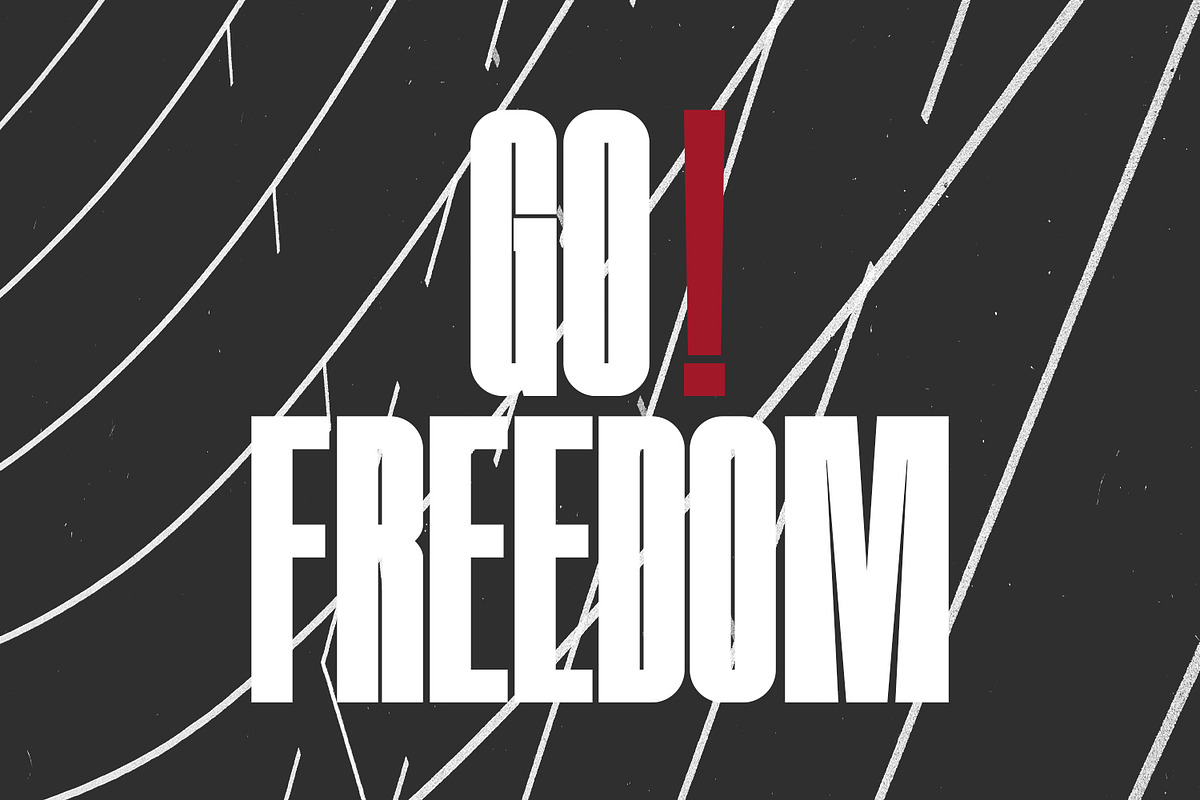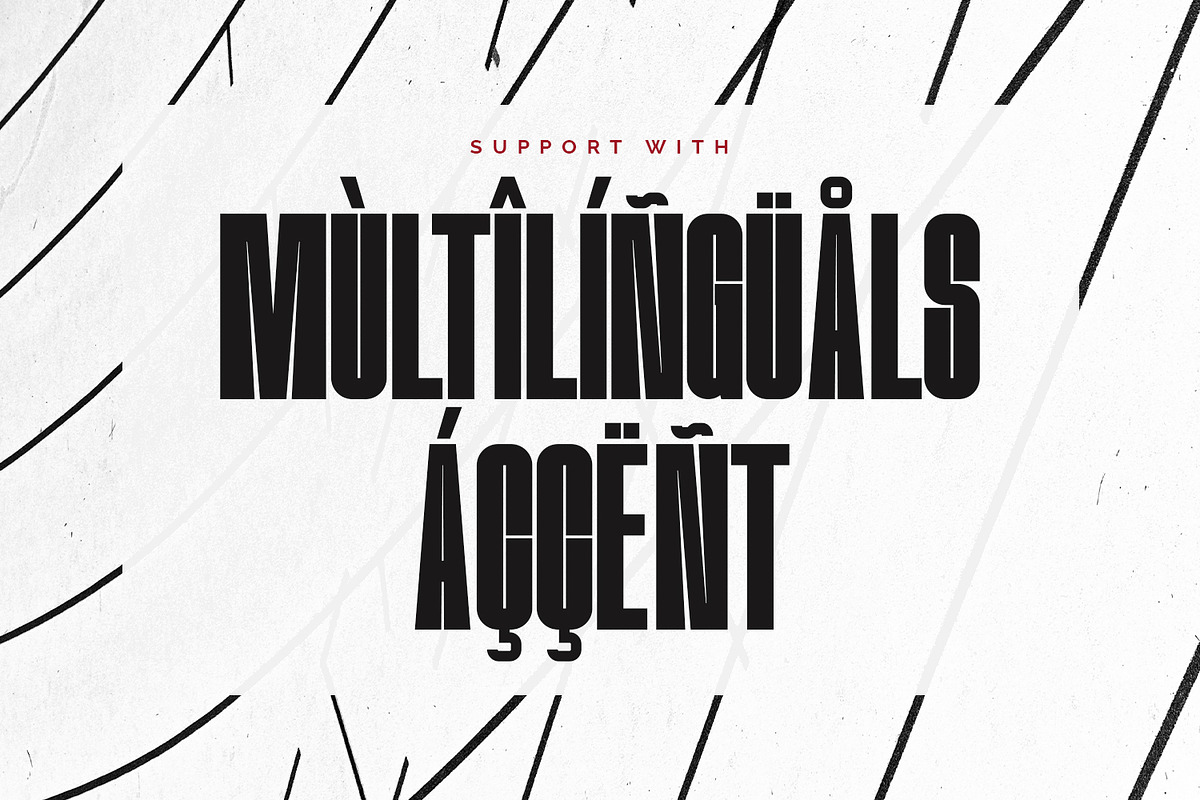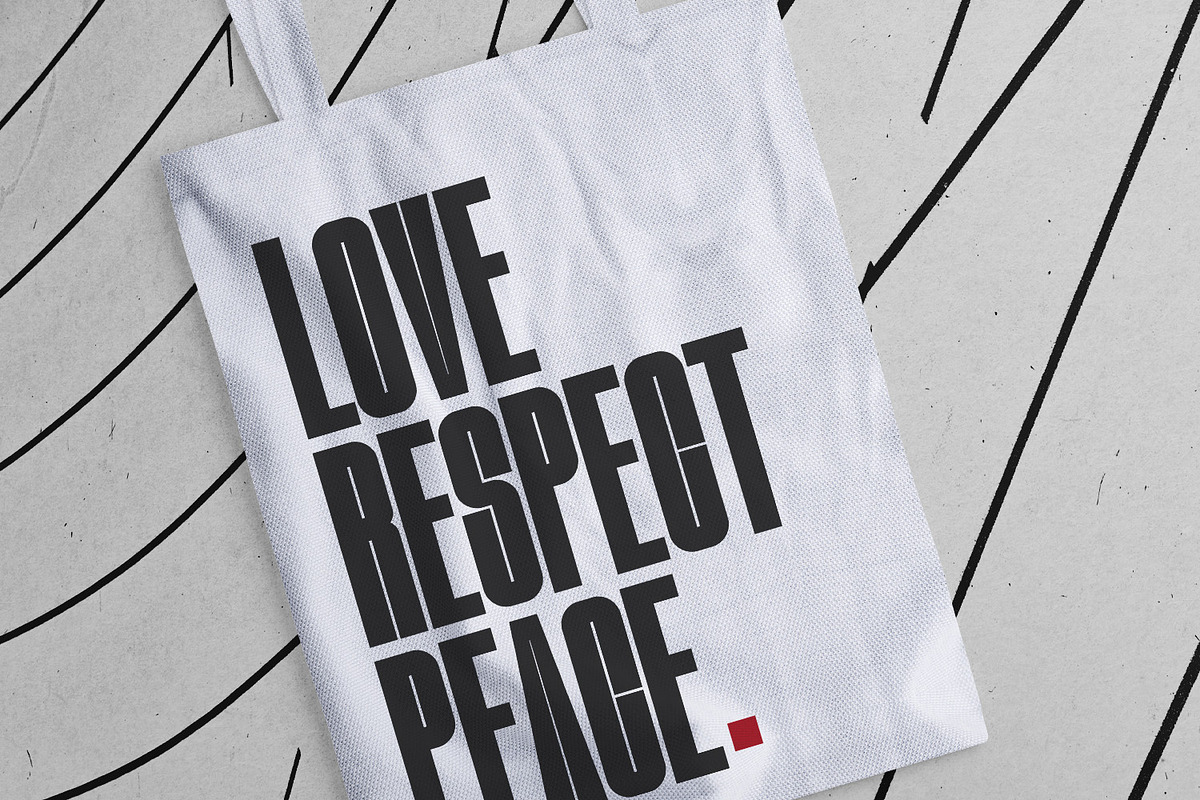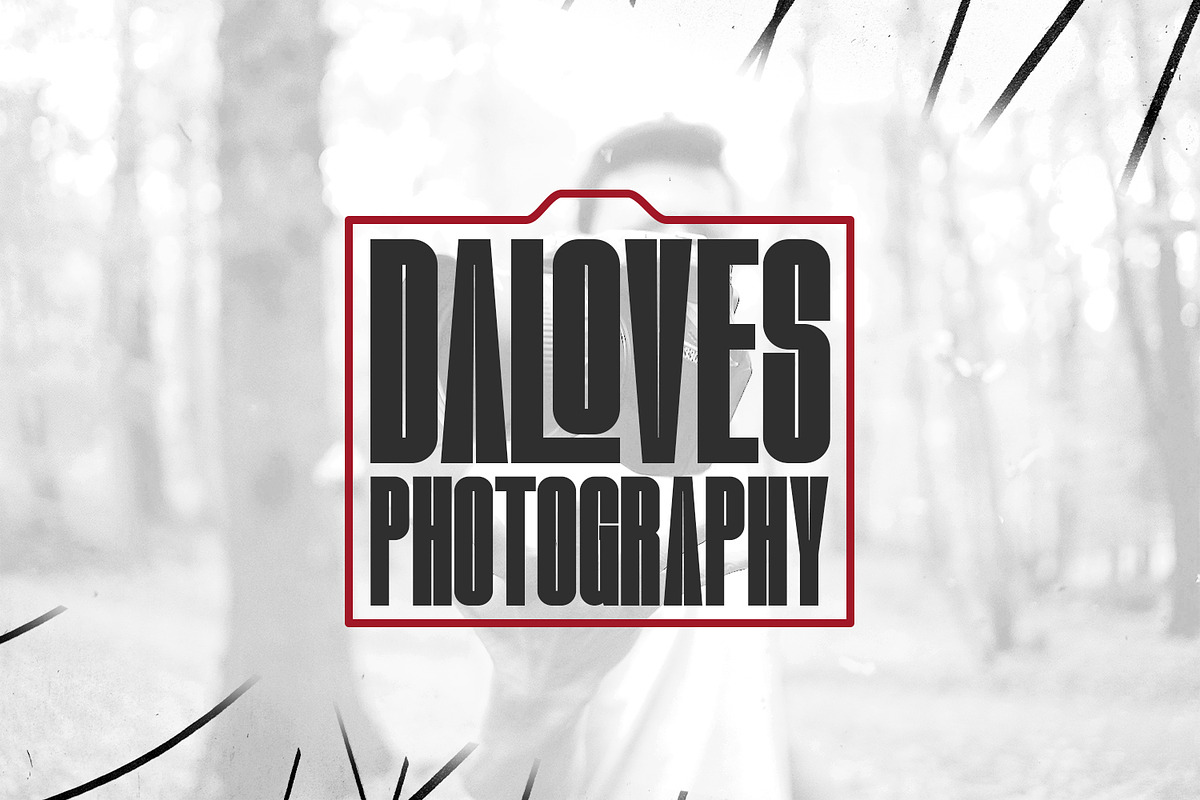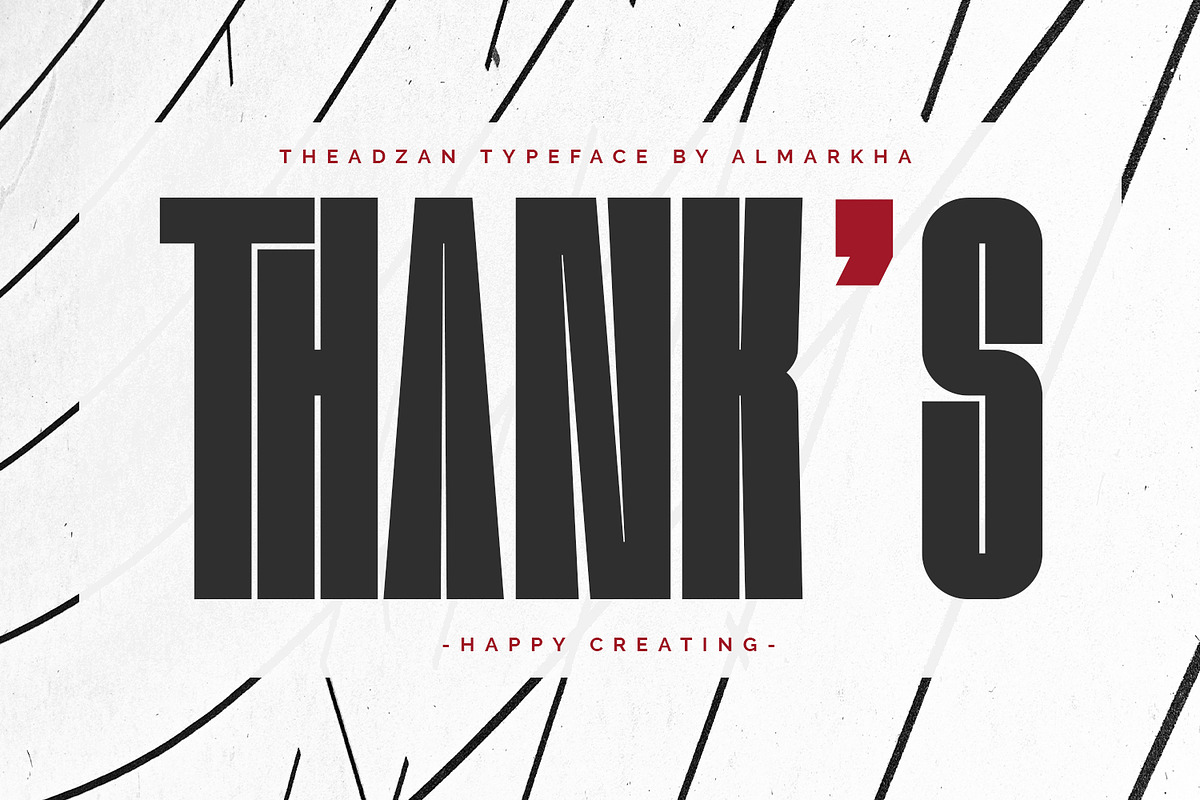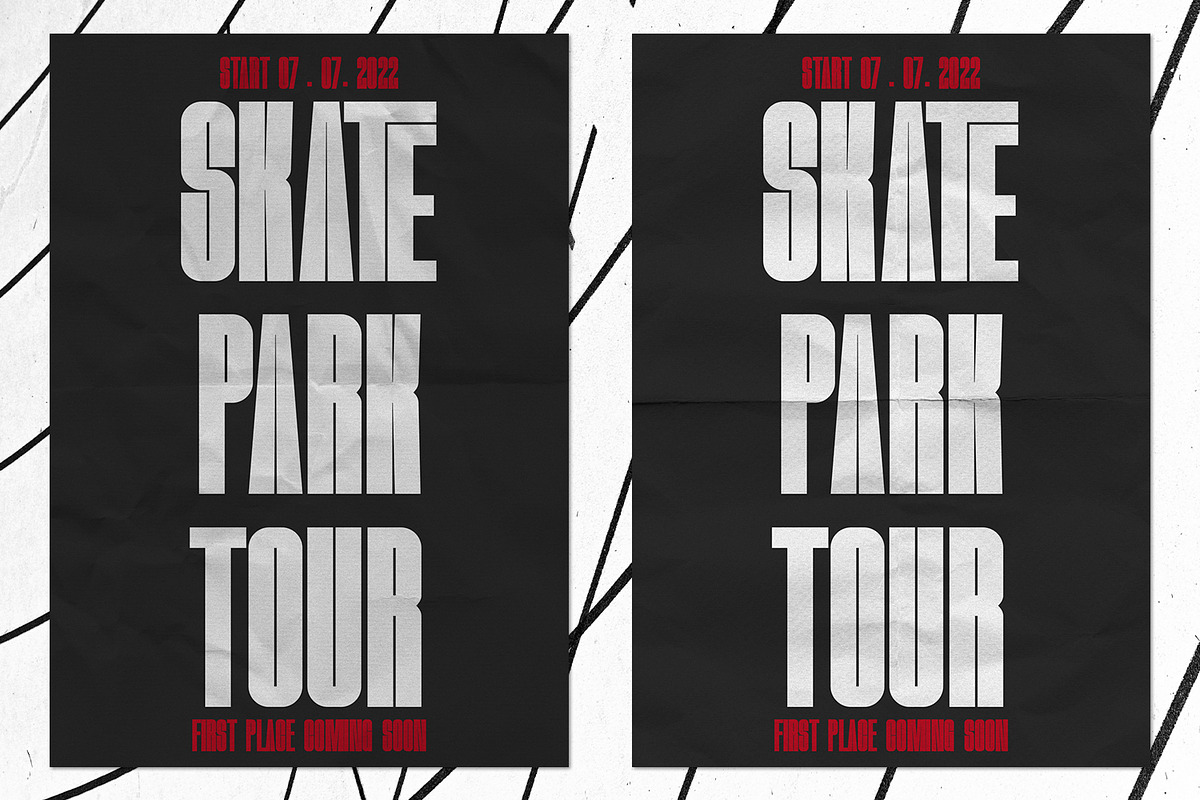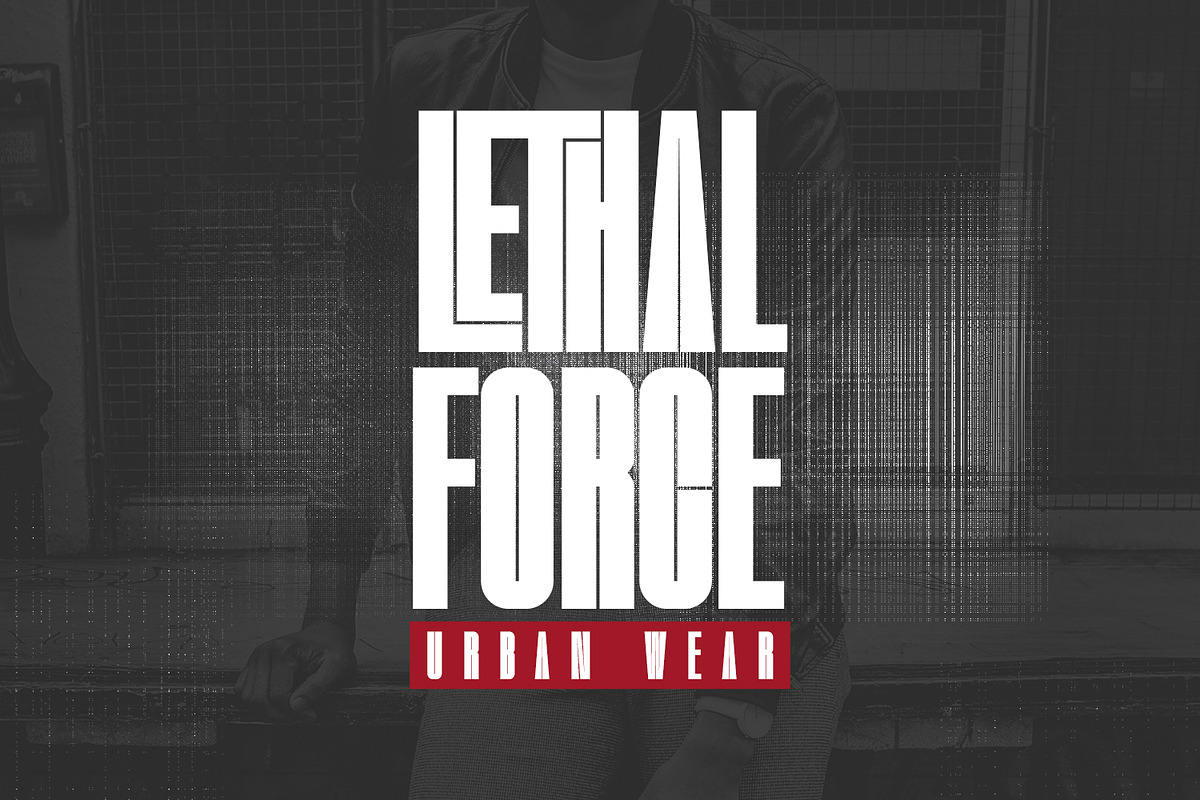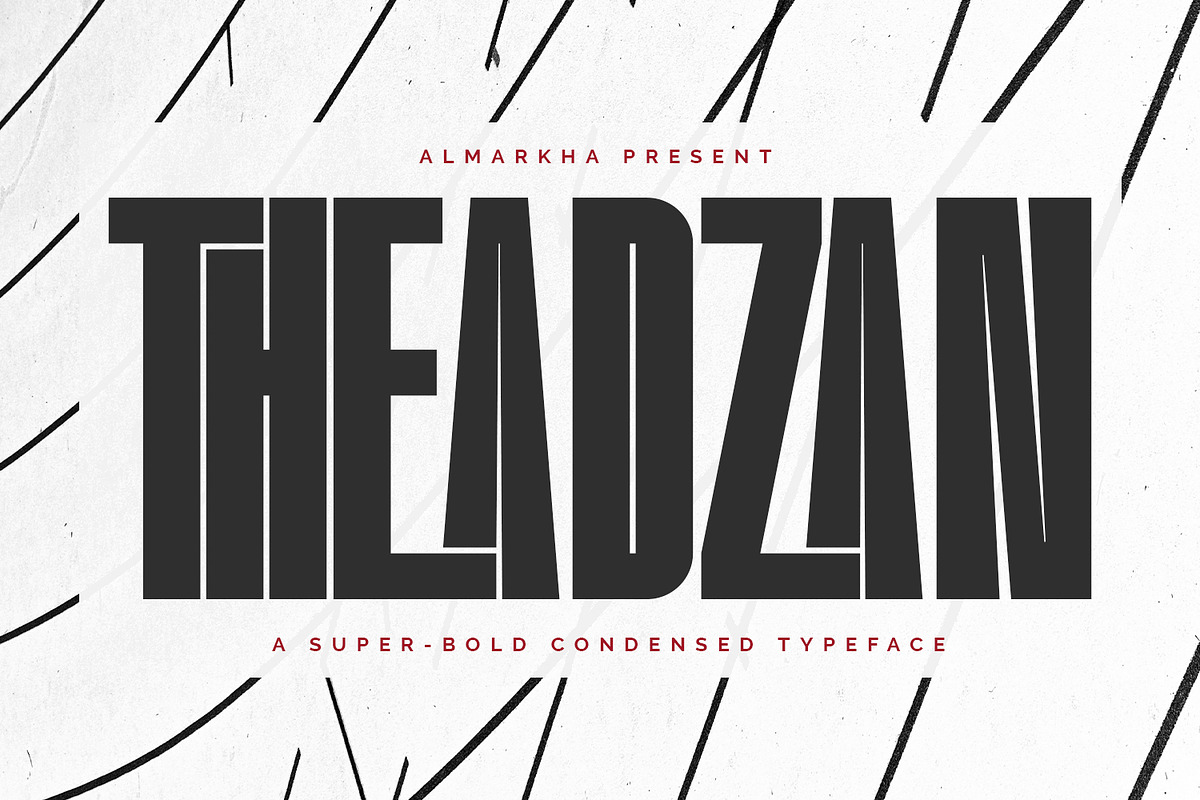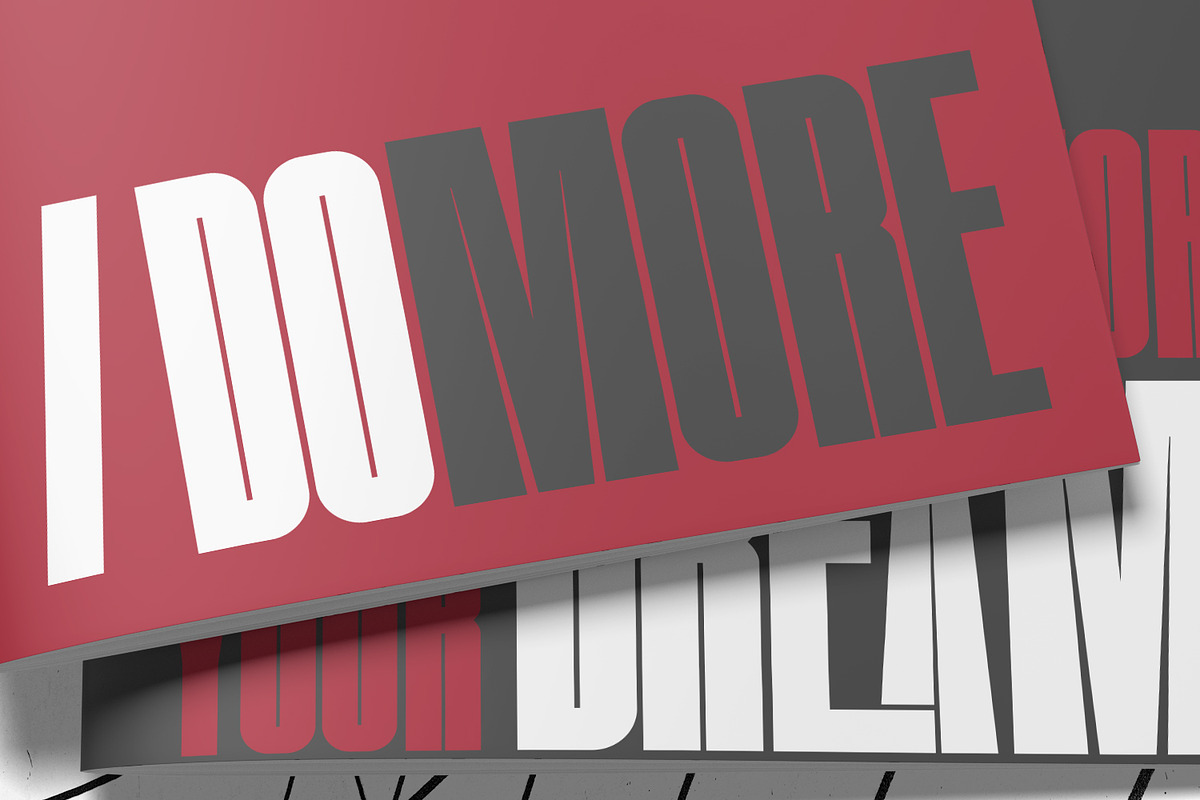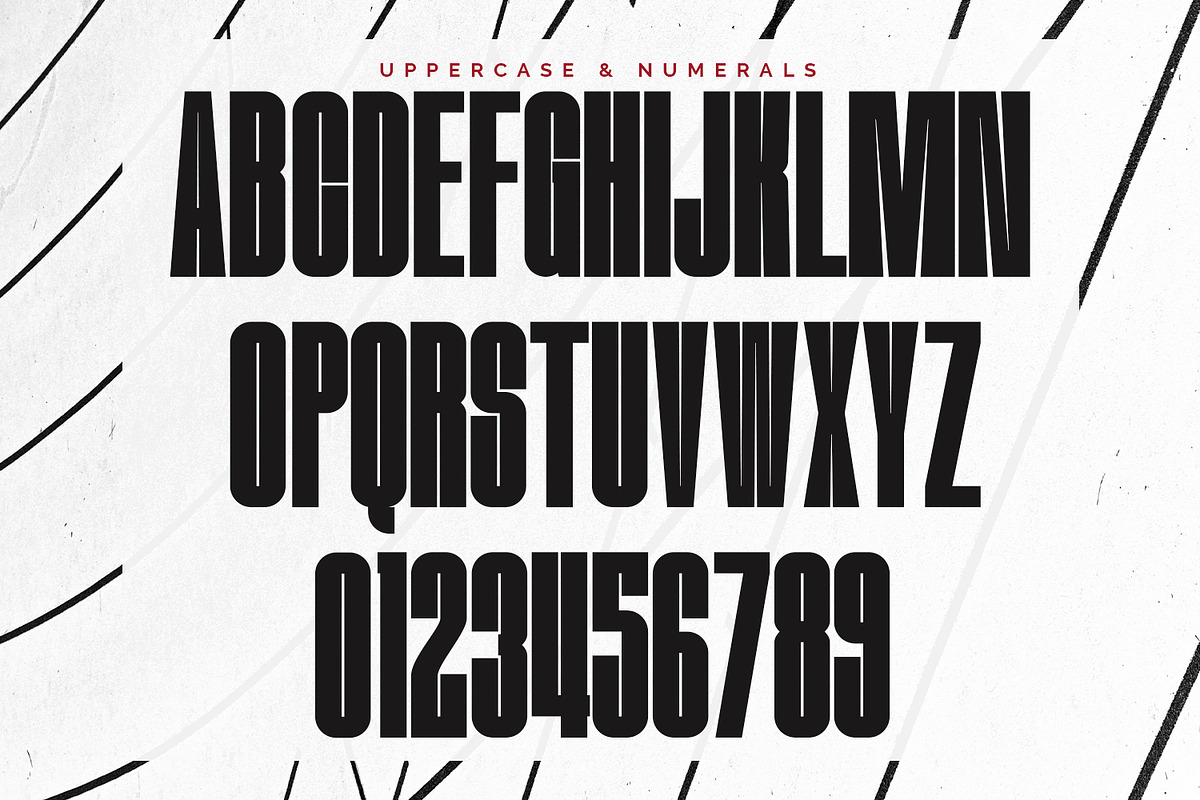
Theadzan - Super Bold Condensed
Hello everyone, we introduce our new product, Thadzan - Super Bold Condensed inspired by the title of the sports poster, We make it very energetically, so it has very strong characteristics, taking into account the thickness and density of each gliph, along with a ligature that makes this font look unique. Thadzan font with strong and challenging nuances. It is also equipped with 10 glyph ligatures, which make the characteristics of this font even more extraordinary. very suitable for the title, typography, clothes, Poster, magazines, brochures, packaging,Websites and much more for your design needs, making your designs more modern and professional